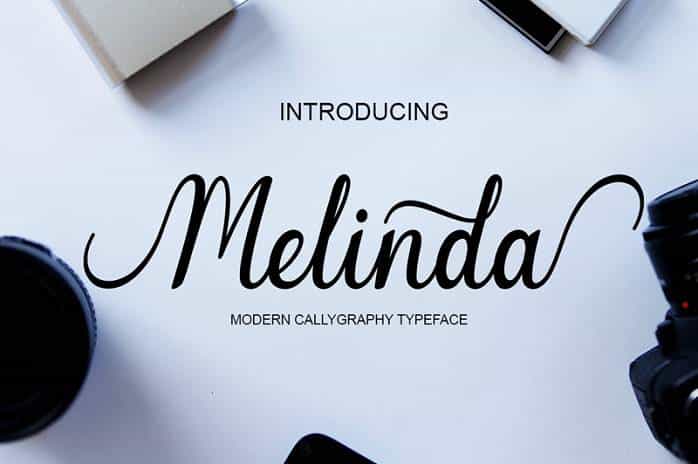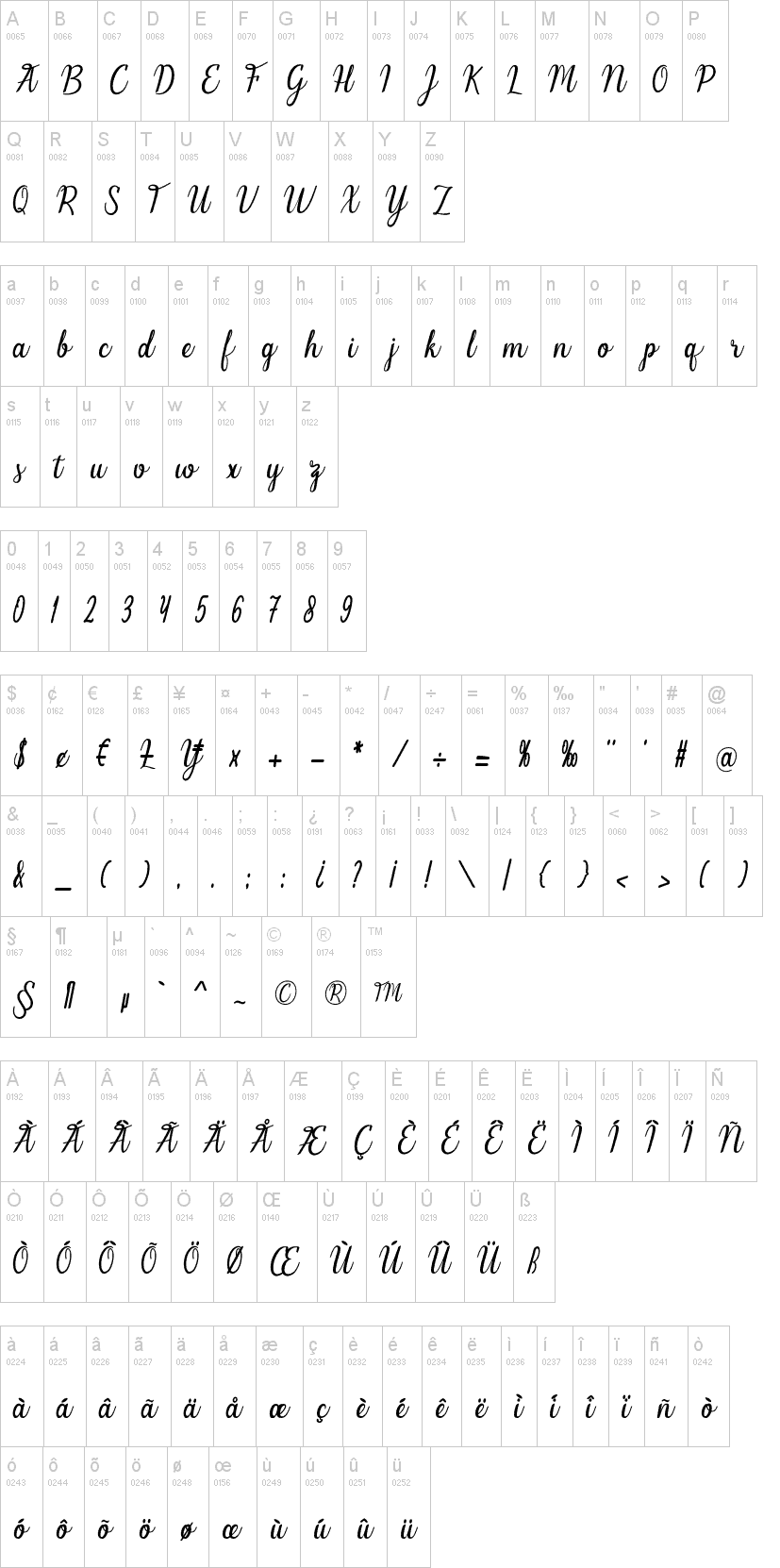
Discover Melinda Font Family, part of the Calligraphy collection—a versatile and unique font perfect for adding a personal touch to your projects. Download it for free and enjoy crafting designs with style, from invitations to social media posts. This font is available exclusively for personal use, giving you the freedom to create without limits. Unlock your creativity with Melinda Font Family today!
I want to present the new font Melinda Script. Melinda Script New fresh and modern style with handmade calligraphy, decorative characters and dancing lineage!How beautiful are invitations such as greeting cards, branding items, business cards, inspirational quotes, posters, and many others. Melinda Script The consists of 520 glyphs. There are other subcategories in Open Type features such as Swash, Stylistic Sets, Stylistic Alternate, Contextual Alternate.